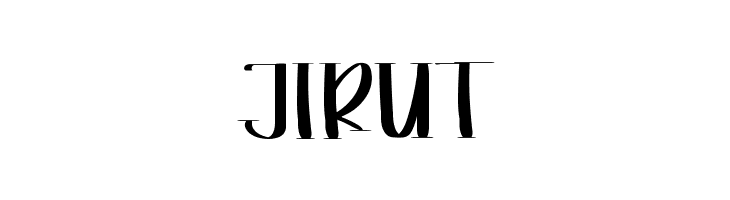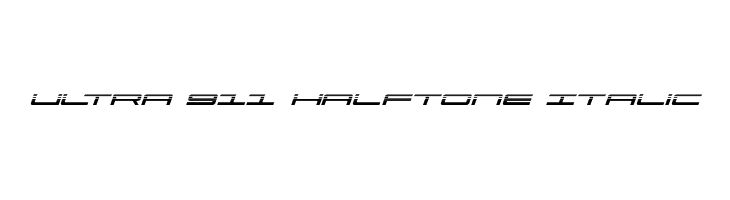
A bold, dynamic font with playful strokes and a modern-classic blend.
A bold, pixelated font with a retro, arcade-style design.
A tall, slender, and modern font with elegant characters.
A bold, geometric, and slightly italicized font with a modern and dynamic style.
An elegant script font with intricate swirls and flourishes, perfect for decorative use.
A lively, handwritten font with fluid strokes and a casual, playful style.
A bold, 3D outlined font with a futuristic and geometric design.
An elegant, light, and oblique font with high contrast and graceful curves.
A bold, shadowed font with a playful and dynamic style.
A bold, geometric font with a futuristic and digital style.